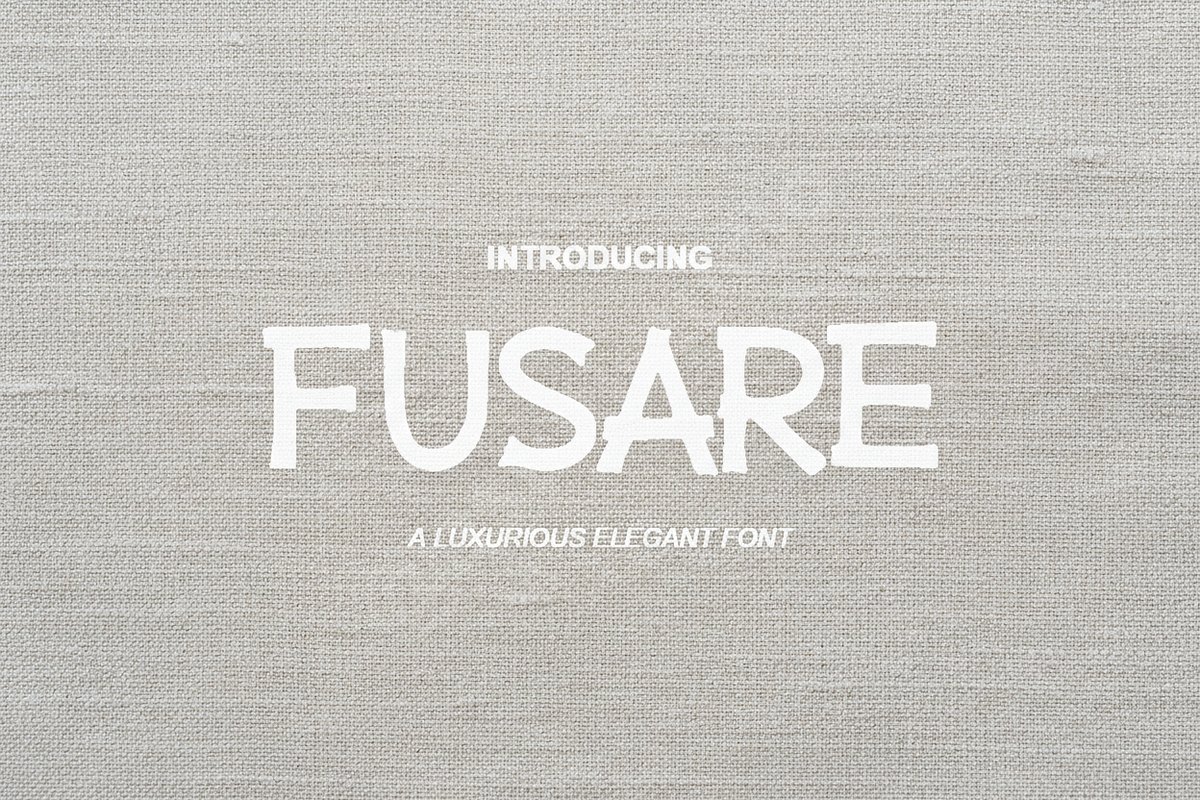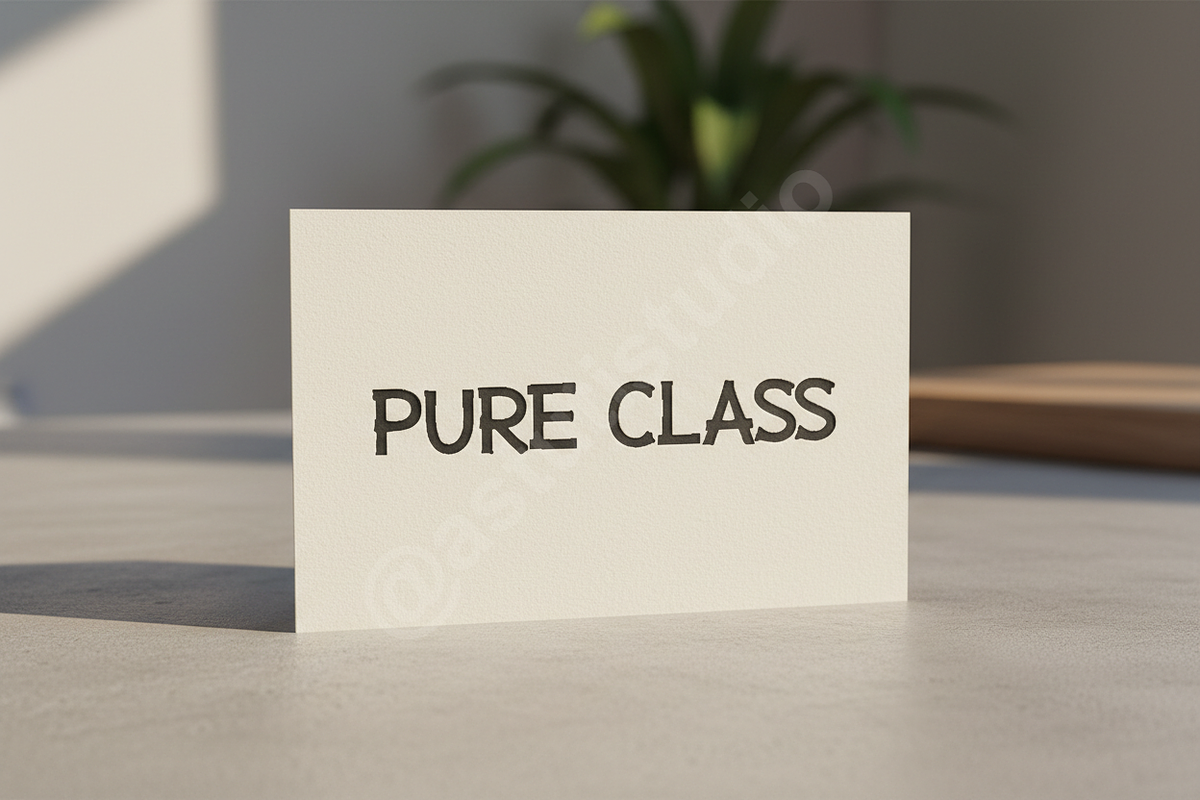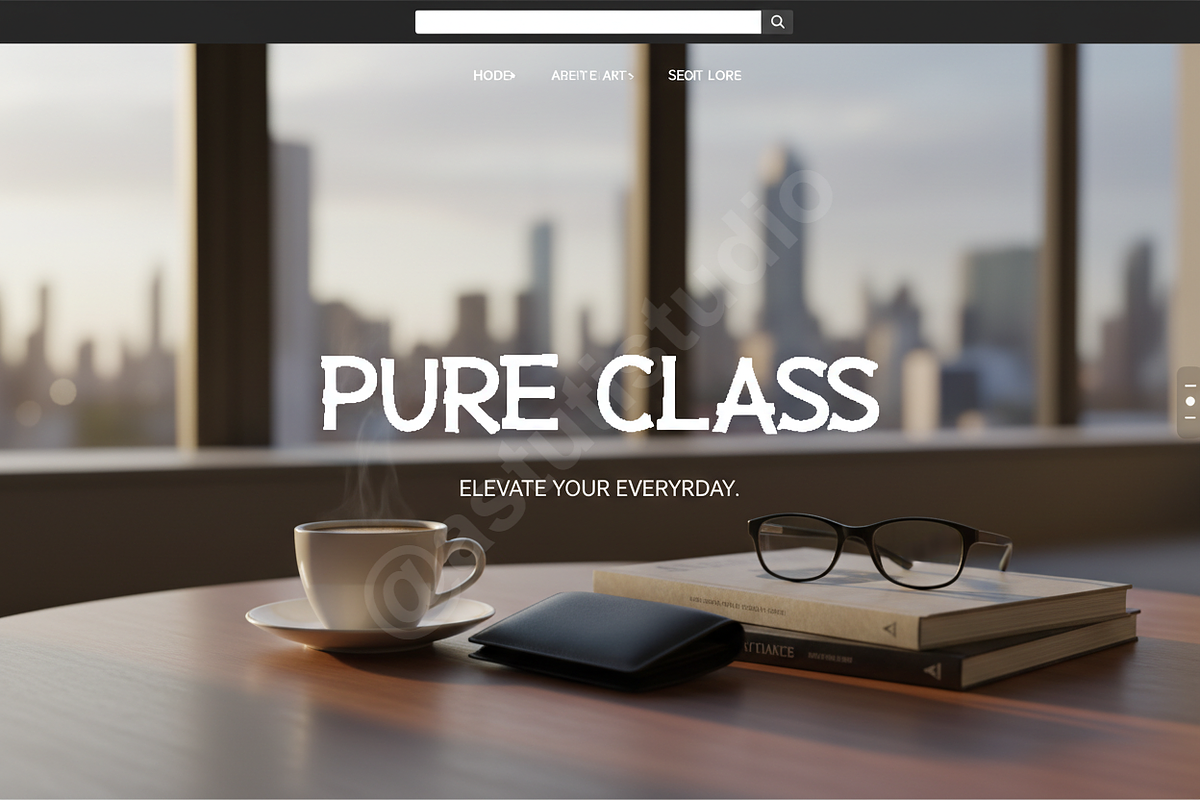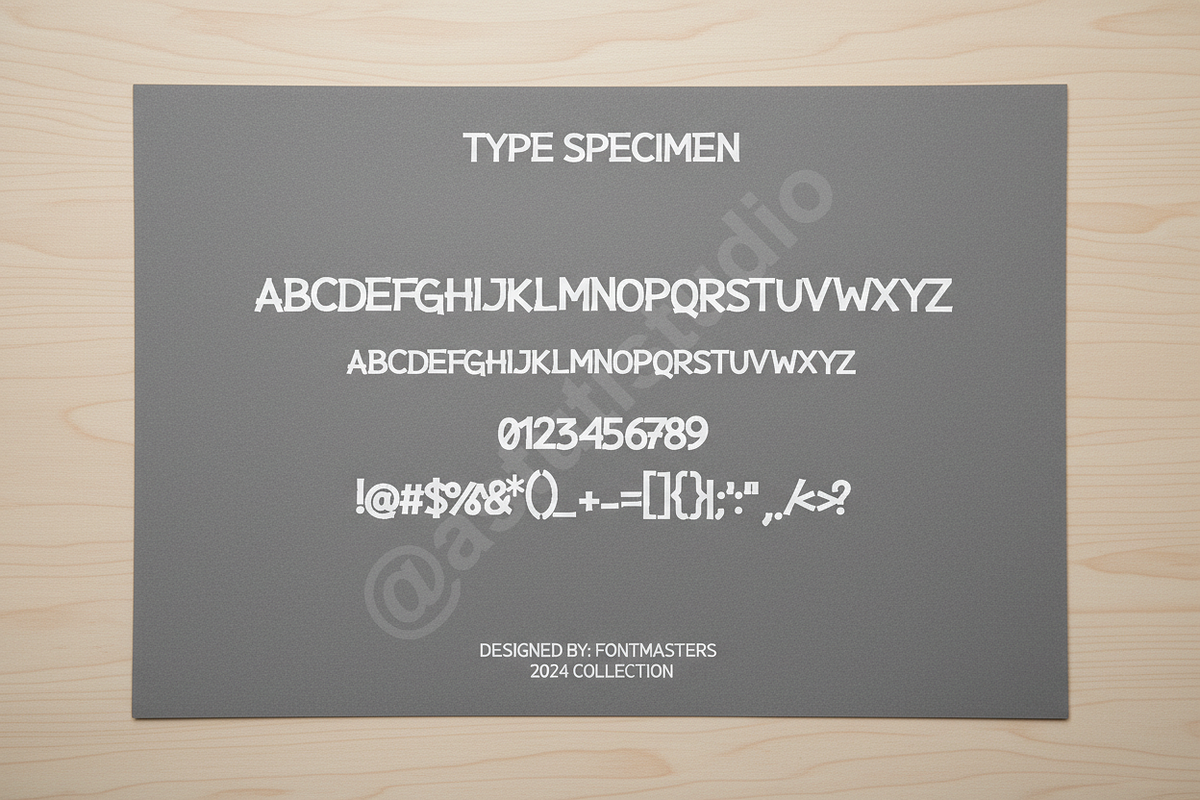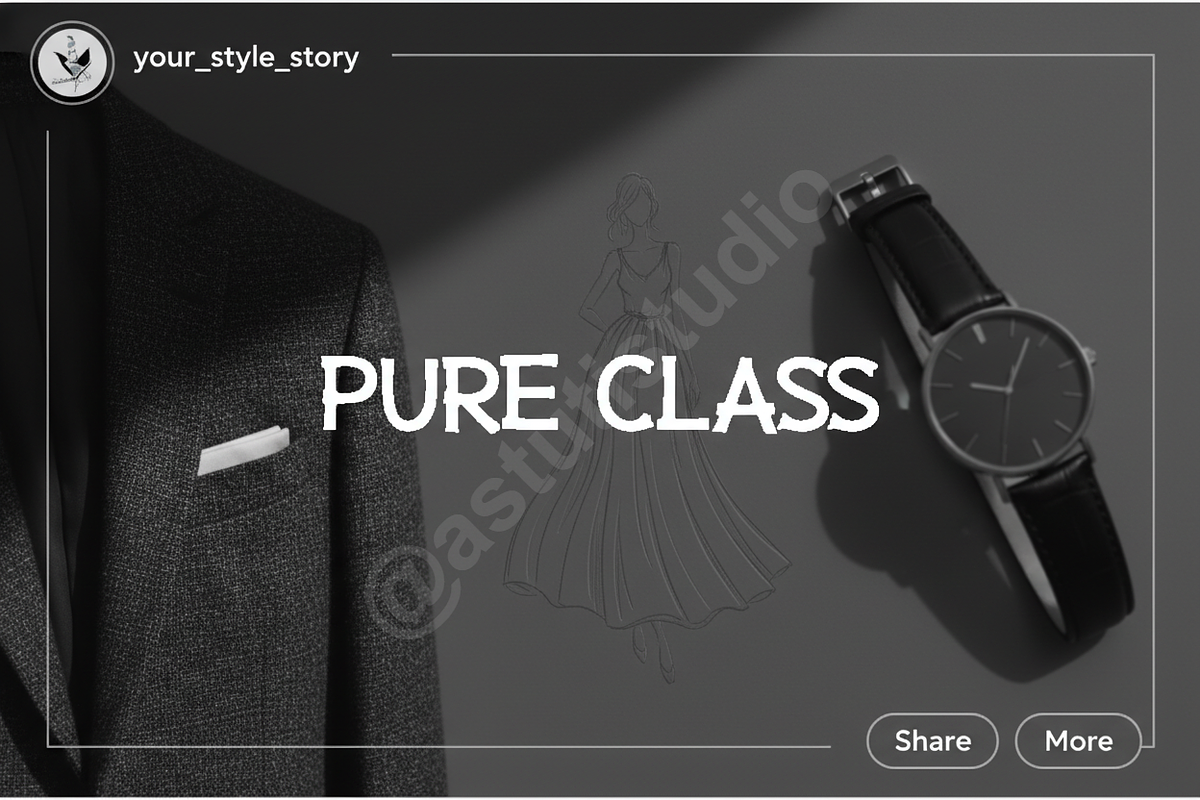
Fusare - Modern Luxury Serif Font
Introducing Fusare – A Modern Luxury Serif Font
Fusare is an exquisite serif typeface designed to elevate your creative projects with an unparalleled touch of sophistication and elegance. Inspired by timeless aesthetics and modern sensibilities, Fusare embodies luxury, making it the perfect choice for high-end branding, captivating editorial layouts, and impactful social media campaigns. Its refined curves and balanced proportions command attention, promising to leave a lasting impression on your audience.
- Elegant Serif Design: A harmonious blend of classic and contemporary styles.
- Extensive Ligatures & Alternates: Enhance your typography with sophisticated connections and stylistic variations.
- Multilingual Support: Reach a global audience with comprehensive character sets.